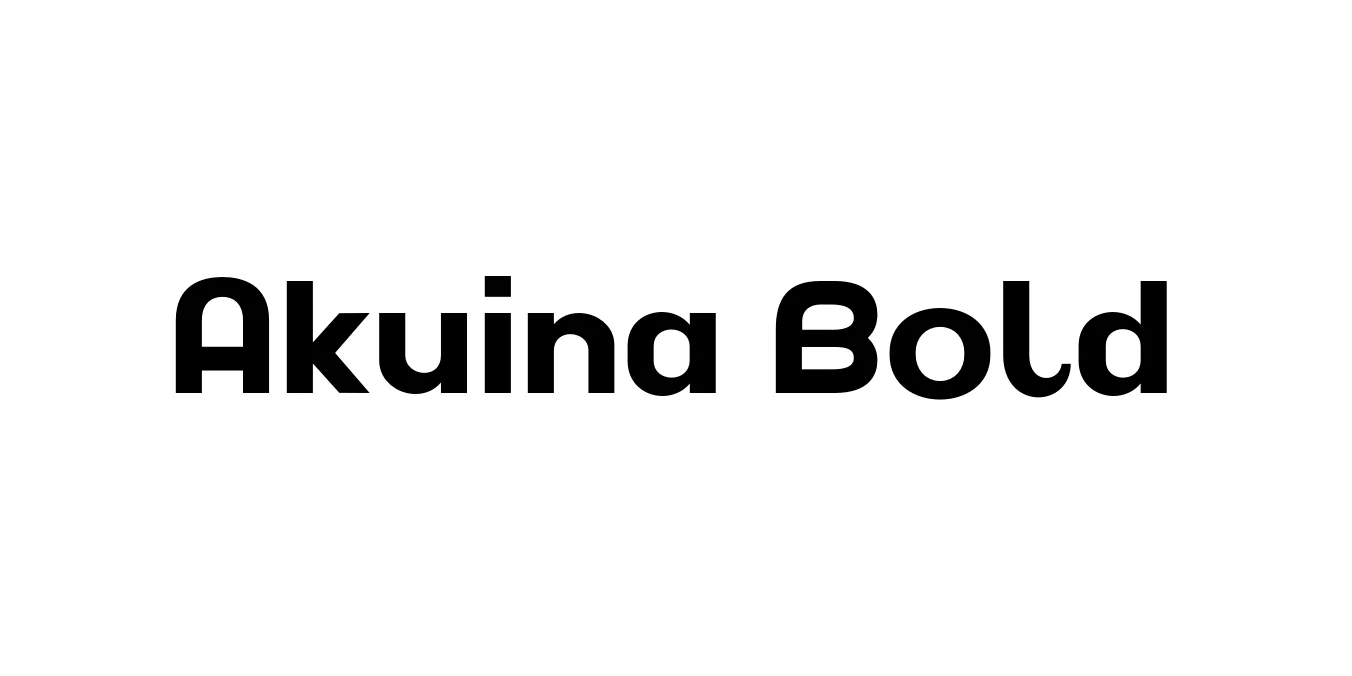
Akuina Bold
Designed by Maulana Creative
| Font Name | Akuina |
| Category | Display Sans Serif |
| Designer | Maulana Creative |
Akuina Bold is a modern and stylish display typeface designed to make a strong visual statement. It features thick, confident strokes and clean lines that provide excellent legibility in large formats. This font is part of the broader Akuina family, known for its contemporary aesthetic and versatility in professional design projects.
The development of Akuina Bold was driven by the need for a typeface that balances geometric precision with a touch of humanist warmth. It has become a popular choice among digital artists and graphic designers for its ability to convey both professionalism and creativity. Whether used for corporate branding or digital media, it remains a reliable tool for high-impact typography.
Akuina Bold Best Uses
Ideal for creating strong and memorable visual brand identities.
Perfect for eye-catching Instagram posts and story headers.
Adds a bold, modern feel to homepage hero sections.
Great for posters and billboards requiring high visibility.